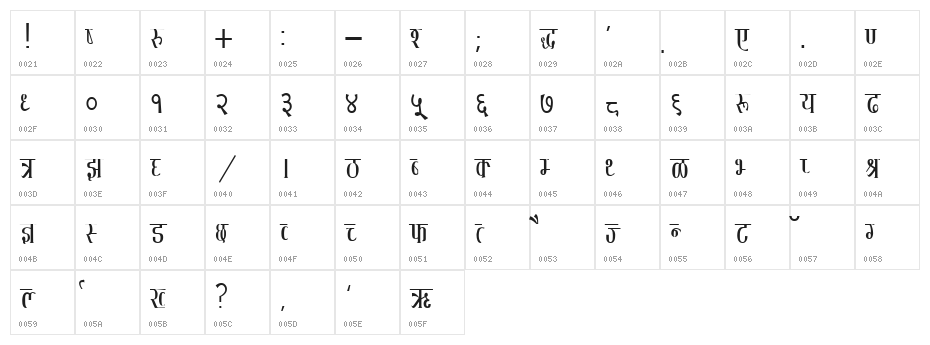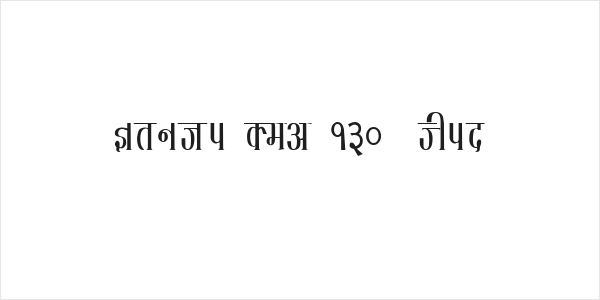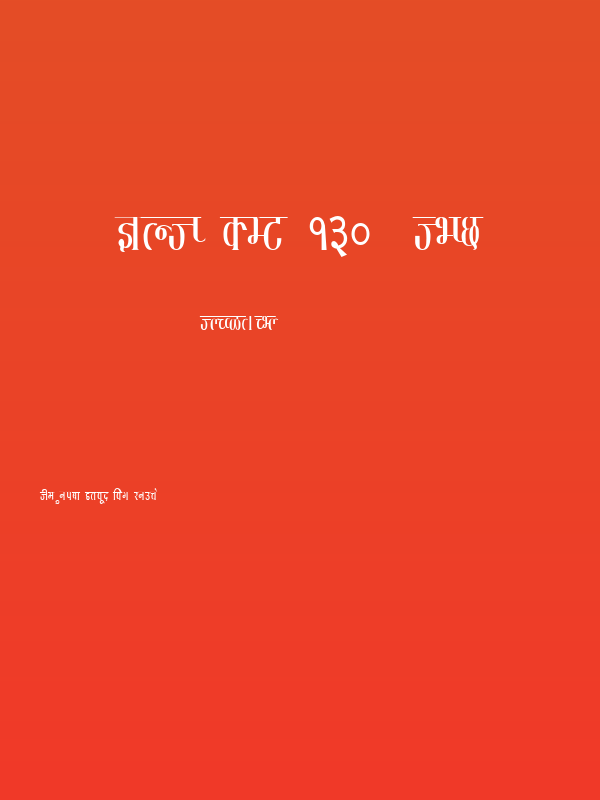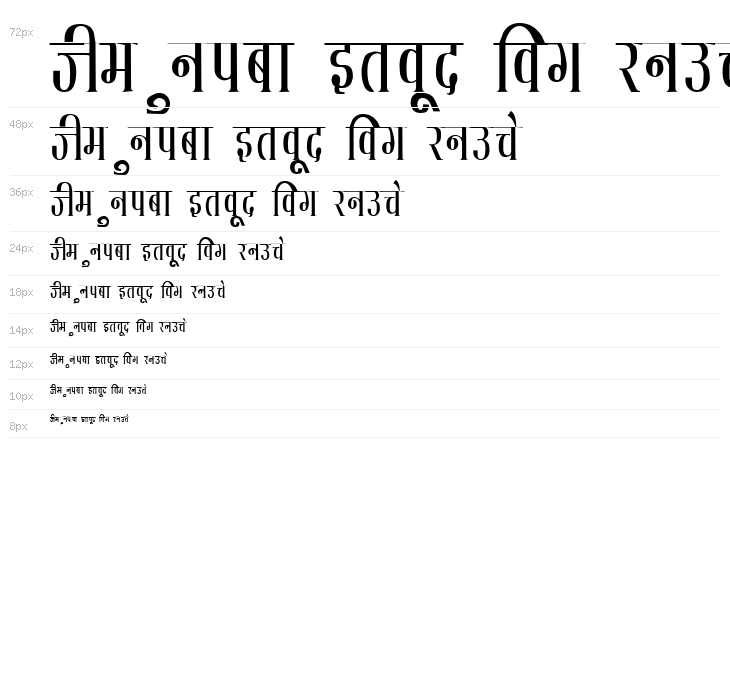
Kruti Dev 130 Thin Font
Kruti Dev 130 Thin Description
This font is a Devanagari script with a traditional and elegant appearance. It features thin, elongated strokes that give it a refined and sophisticated look. The characters are well-defined with a slight curvature, adding a touch of grace to the overall design. The numerals and special characters are consistent with the script's style, maintaining the same thin and elegant lines. This font is suitable for formal documents and artistic projects that require a touch of cultural authenticity.
| Use Case | Headlines, Artistic projects |
| Proposed Projects | Ideal for cultural publications, formal invitations, and artistic projects requiring a traditional touch. |